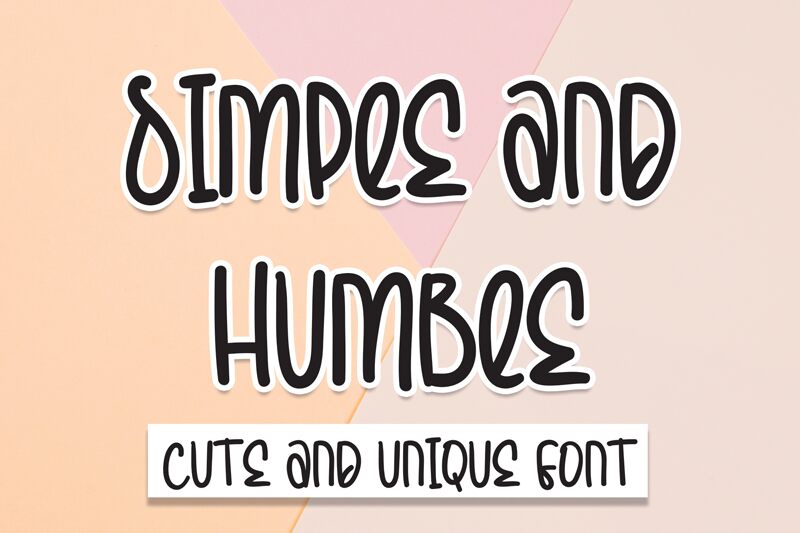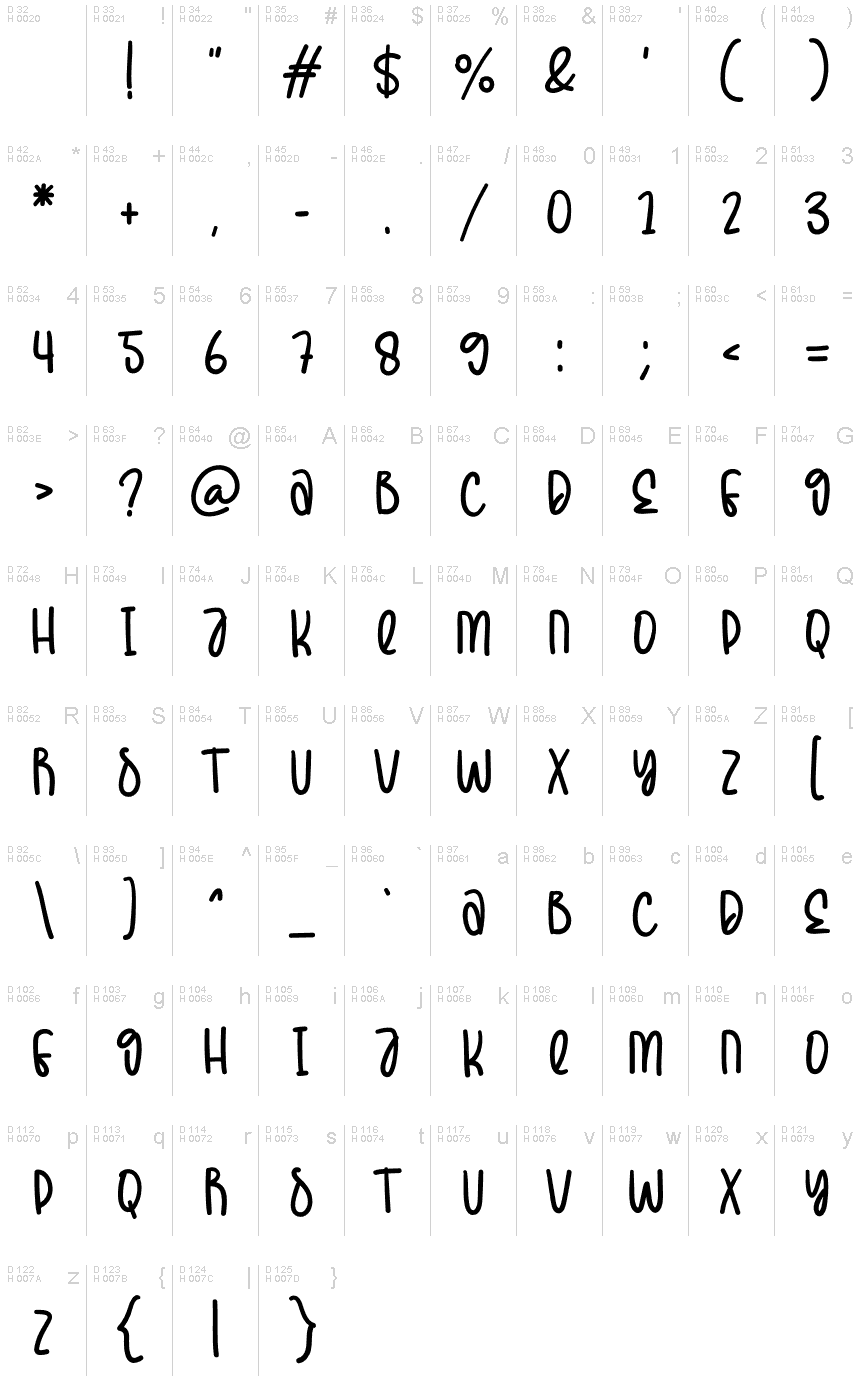
Simple And Humble
Simple and Humble, designed by Scratchones, is a captivating semi-light and condensed handwritten font that exudes charm with every stroke. Its aesthetic appeal lies in the effortless blend of casual elegance and personal touch, reminiscent of a bespoke note crafted with care. The subtle irregularities in the handwriting style lend authenticity and warmth to the font, making it perfect for projects that require a touch of intimacy.
The semi-light weight of Simple and Humble ensures that it maintains a delicate presence on the page without overwhelming other design elements. Meanwhile, its condensed width allows for efficient use of space without sacrificing readability, making it an excellent choice for cozy graphics or text-heavy designs where space is at a premium.
Whether you're designing heartfelt invitations, crafting artisanal branding or looking to add personality to editorial content, Simple and Humble's inviting character can elevate your creative work with its understated yet evocative style.